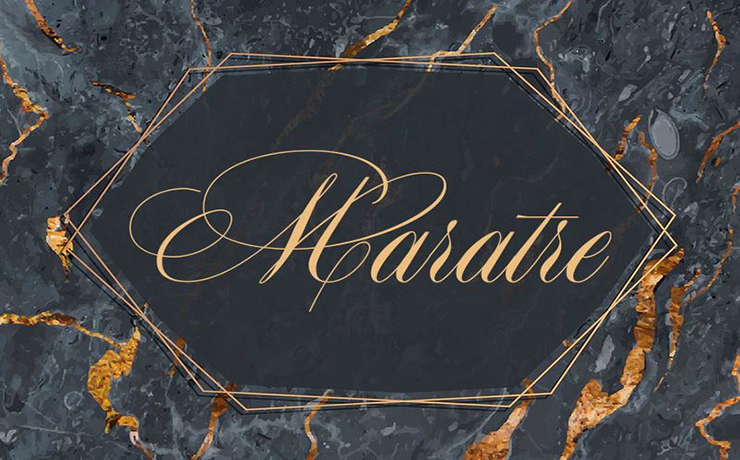
Maratre Font is a script calligraphy typeface that features varying baselines which gives your art a bouncy and playful feel. It’s a good choice for wedding invitations, logos, t-shirt designs, and signatures.
The entire structure is handmade which maintains the natural flow throughout the typeface. And you will find this flow in your design where it applies.
And these characters combine the best fonts with a fancy touch. Therefore, it is a beautiful choice for you because, with its help, you can create high-quality designs easily.
| Style: | Script, Calligraphy, Typeface |
- With this stylish font help, you can create special event cards, unique emblems, game titles, printing on cards, product packaging, and product designs, as well as quote fonts for Instagram posts.